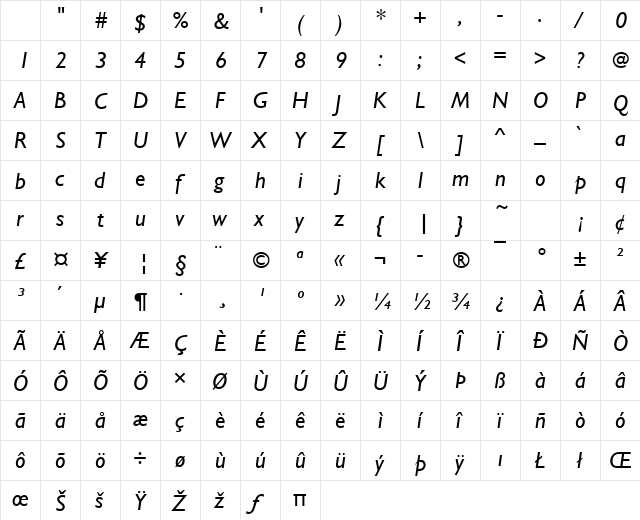
URWGalaxieNo2T is a composed and adaptable typeface that performs quietly and consistently across a wide range of design contexts. The slanted form adds forward momentum and visual energy.
Pro Tip: Use URWGalaxieNo2T for emphasis, pull quotes, and subheadings where its slanted energy can add rhythm to the layout.